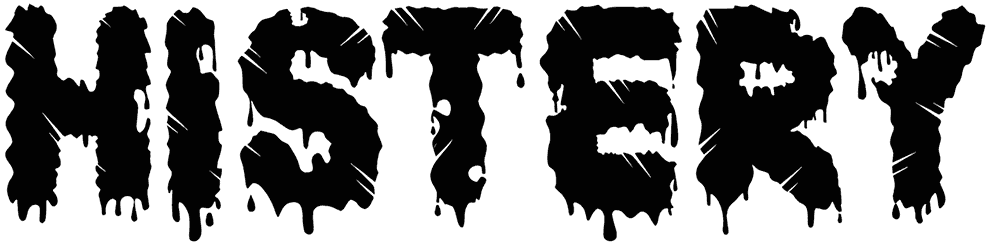
Histery Font
If finding a suitable horror font for designing high-end graphic content is hard for you, then you must check out the RB font collection and enjoy a masterpiece like Histery.
The characters of this all-caps dripping font look like a melting candle; thus, it can add a vibe of momentum, eerie, captivating, or fearful to your work. We offer you to utilize this magical drop font in your video game posters, billboards, flyers, branding, or social media posts.